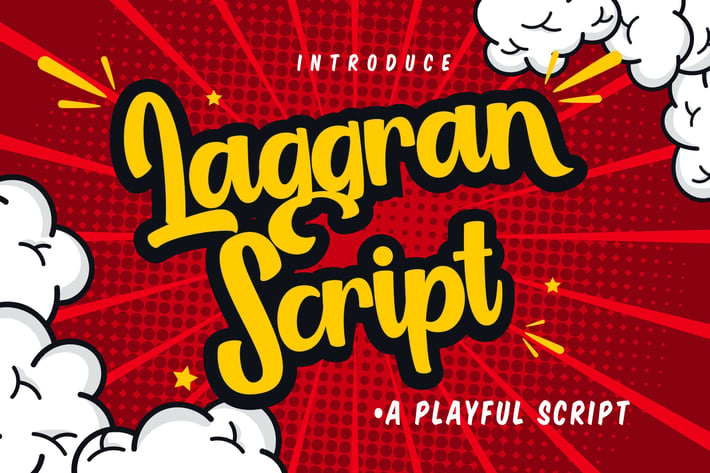
Laggran | Playful Script Font
Laggran | Playful Script Font with a calligraphy style, So beautiful on invitation like greeting cards, branding materials, business cards, quotes, posters, and more!